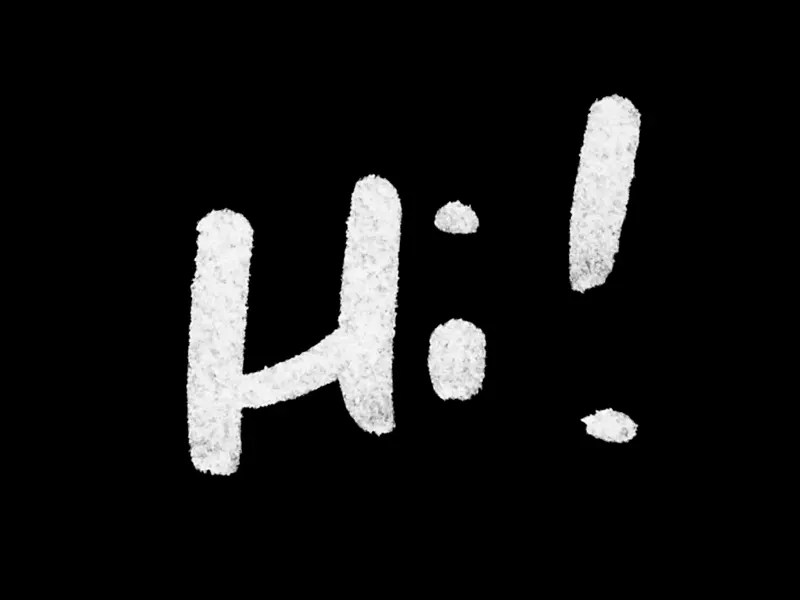
Cool Hi Fonts Ideas
Social media posts look better when the fonts are changed. High font family was designed by gareth hague and published by alias. Like, cute fonts for instagram, cute fonts for facebook, cute fonts for twitter, etc.
Hi bestina is a handwritten decorative font adorned with leaves and flowers cute and stylish, add it to any of your creative projects, and it will make them come alive! This text font generator allows you to convert normal text into different text fonts that you can copy and paste into instagram, facebook, twitter, twitch, youtube,. Instant downloads for 18 free hawaii fonts.
Complete family of 6 fonts: This is a generator for text fonts of the cool variety. Our list of free fonts is.